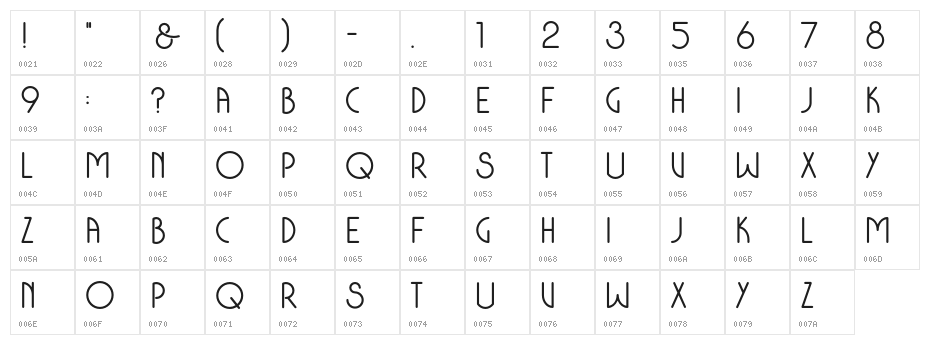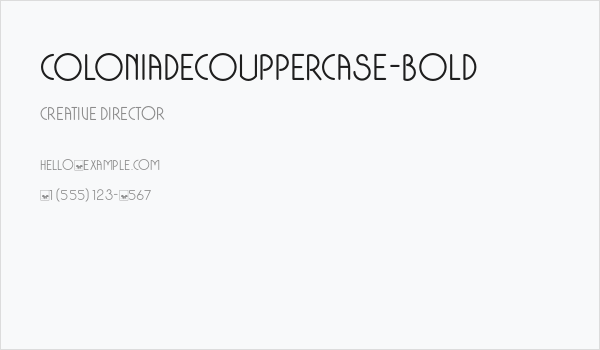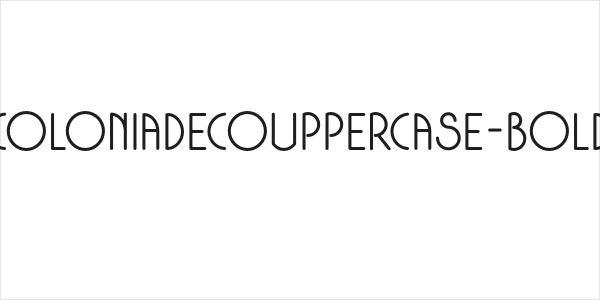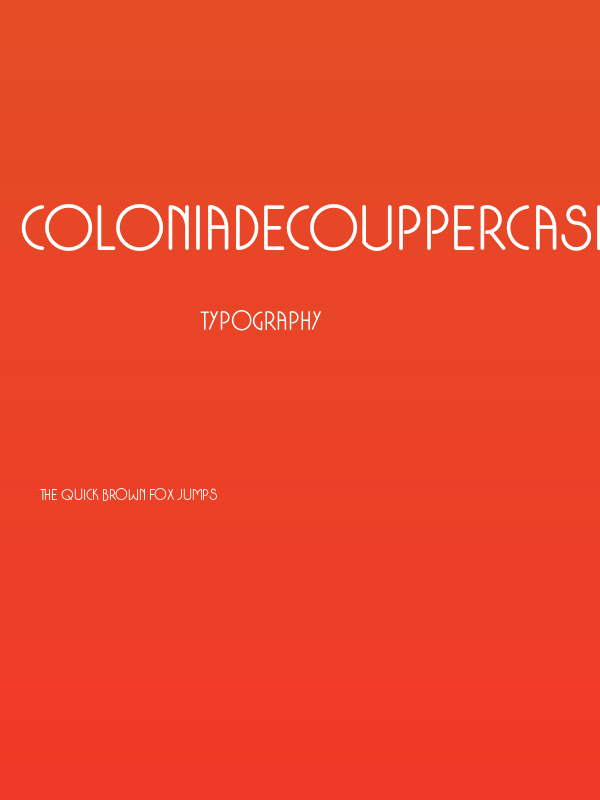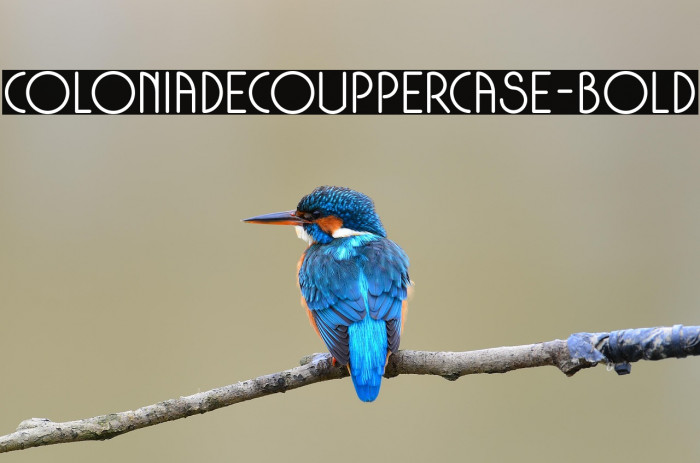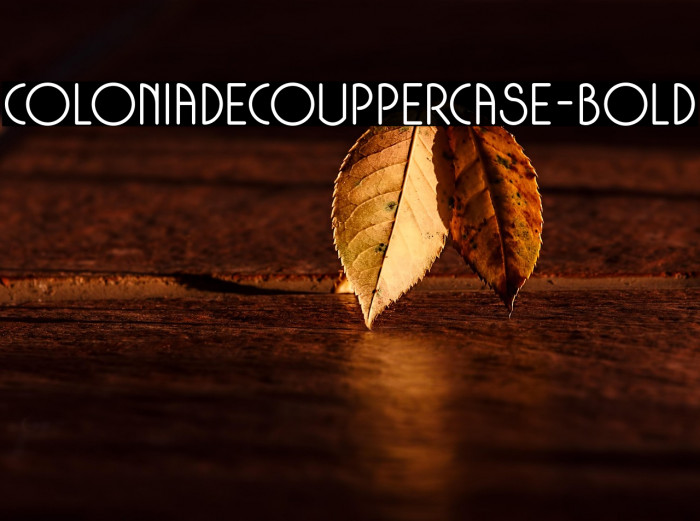
ColoniaDecoUppercase-Bold Font
This font features a unique blend of Art Deco influences with a modern twist. The characters are elegantly elongated with a consistent stroke width, giving them a sleek and sophisticated appearance. The geometric shapes and clean lines create a sense of balance and harmony, making it ideal for projects that require a touch of elegance and style. The uppercase letters are particularly striking, with their tall and narrow forms, while the numerals and special characters maintain the same aesthetic, ensuring a cohesive look across all text elements.
| Proposed Projects | Ideal for branding, packaging, posters, and any design work that requires a stylish and modern touch. |